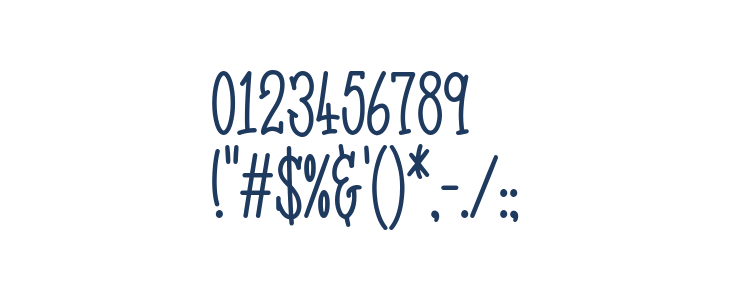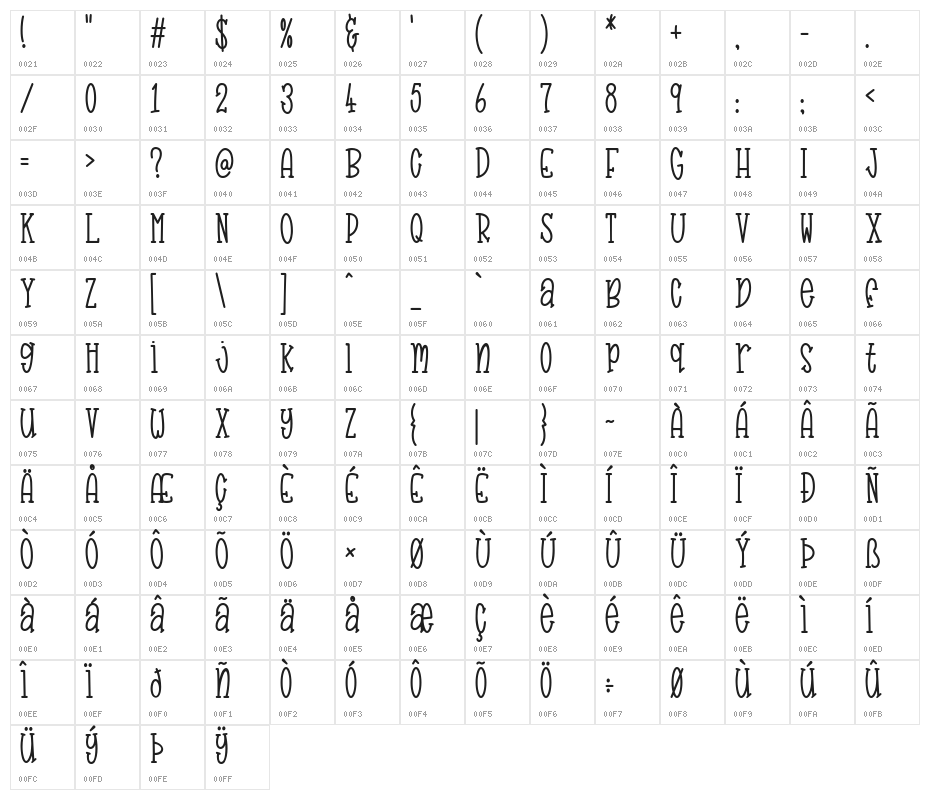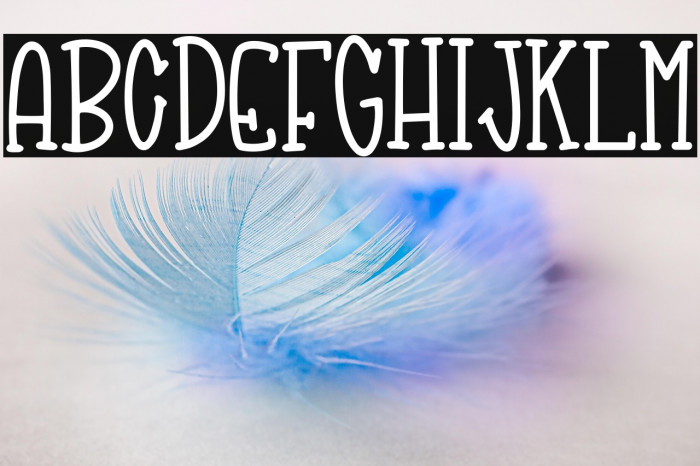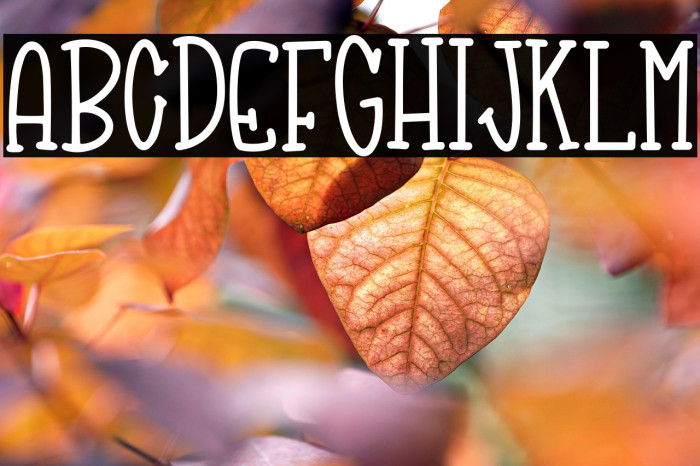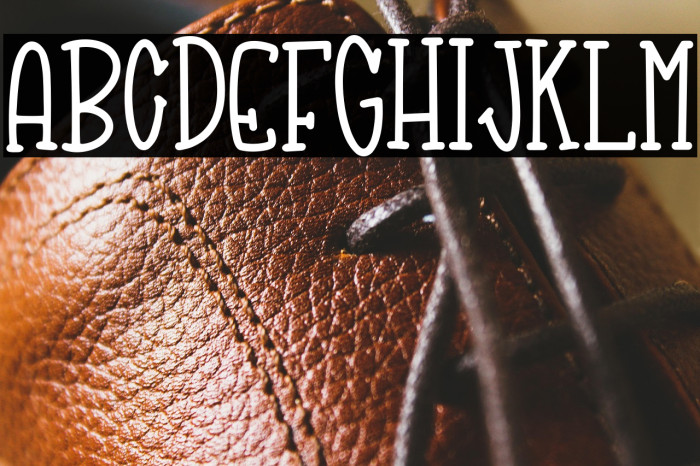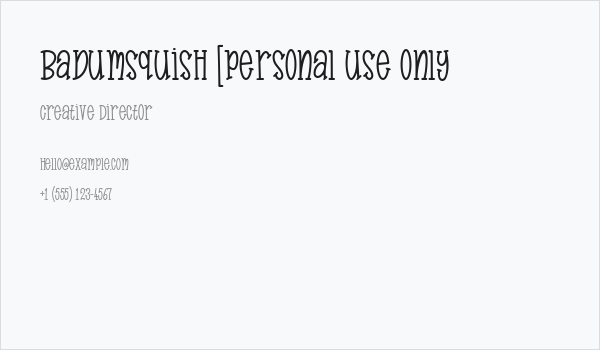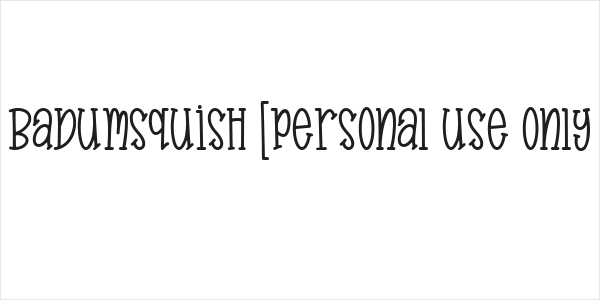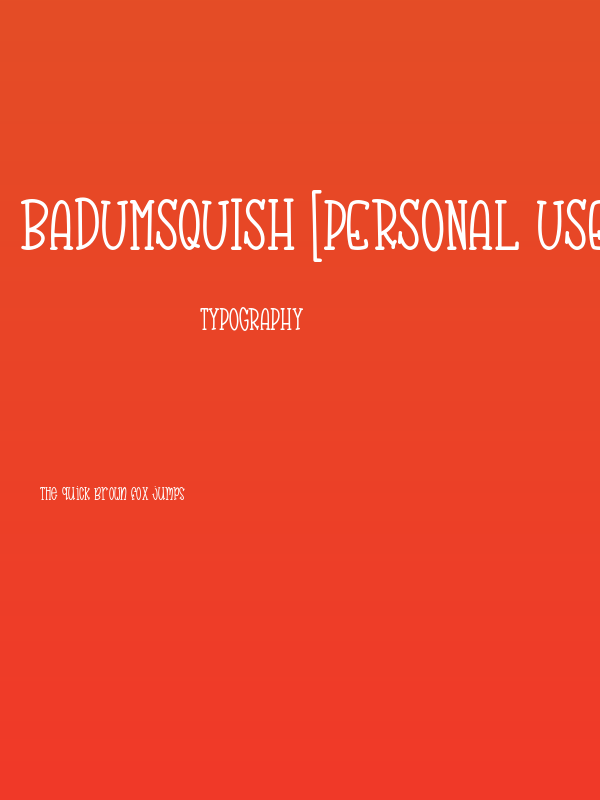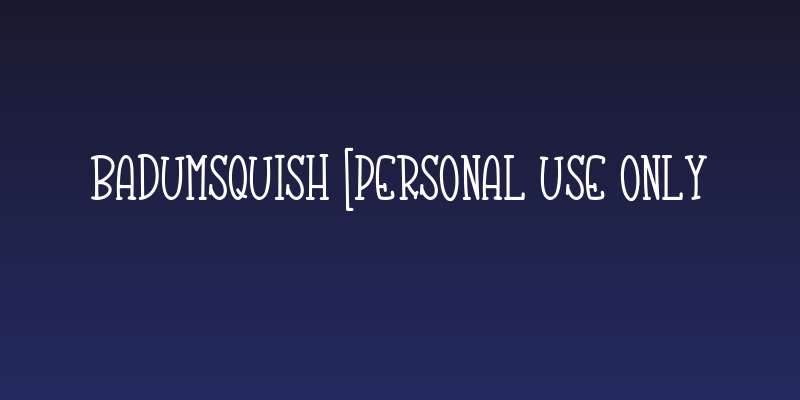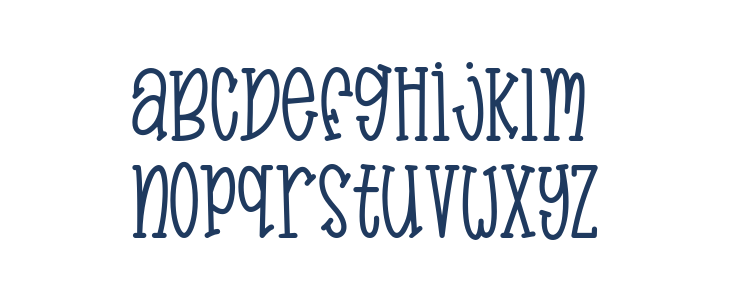
Badumsquish [personal use only Font
Badumsquish [personal use only Description
This playful and whimsical font features tall, narrow characters with a hand-drawn aesthetic. The uppercase and lowercase letters have a consistent height, giving the font a cohesive look. The strokes are smooth and slightly irregular, adding to the casual and friendly feel. The numbers and special characters maintain the same quirky style, making the font versatile for various uses. The overall design is reminiscent of a handwritten script, yet maintains clarity and readability.
| Proposed Projects | Ideal for children's books, greeting cards, playful branding, and creative projects that require a fun and informal touch. |